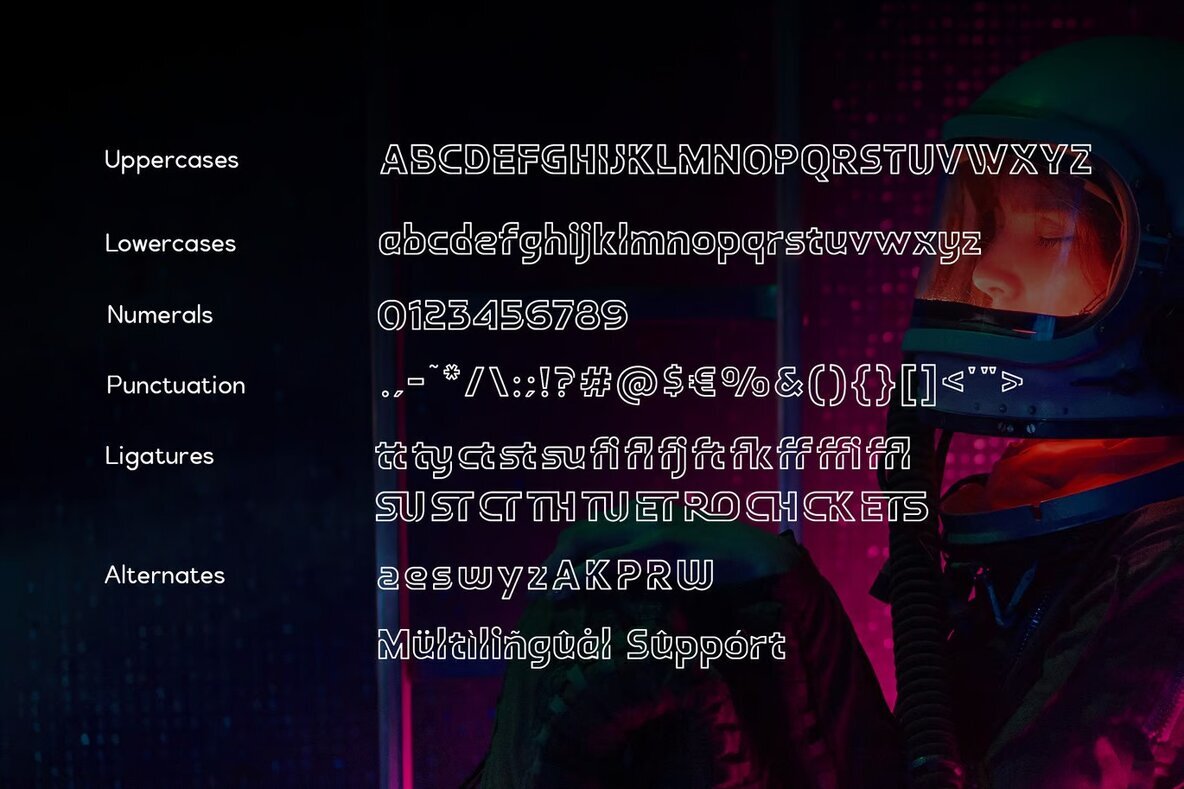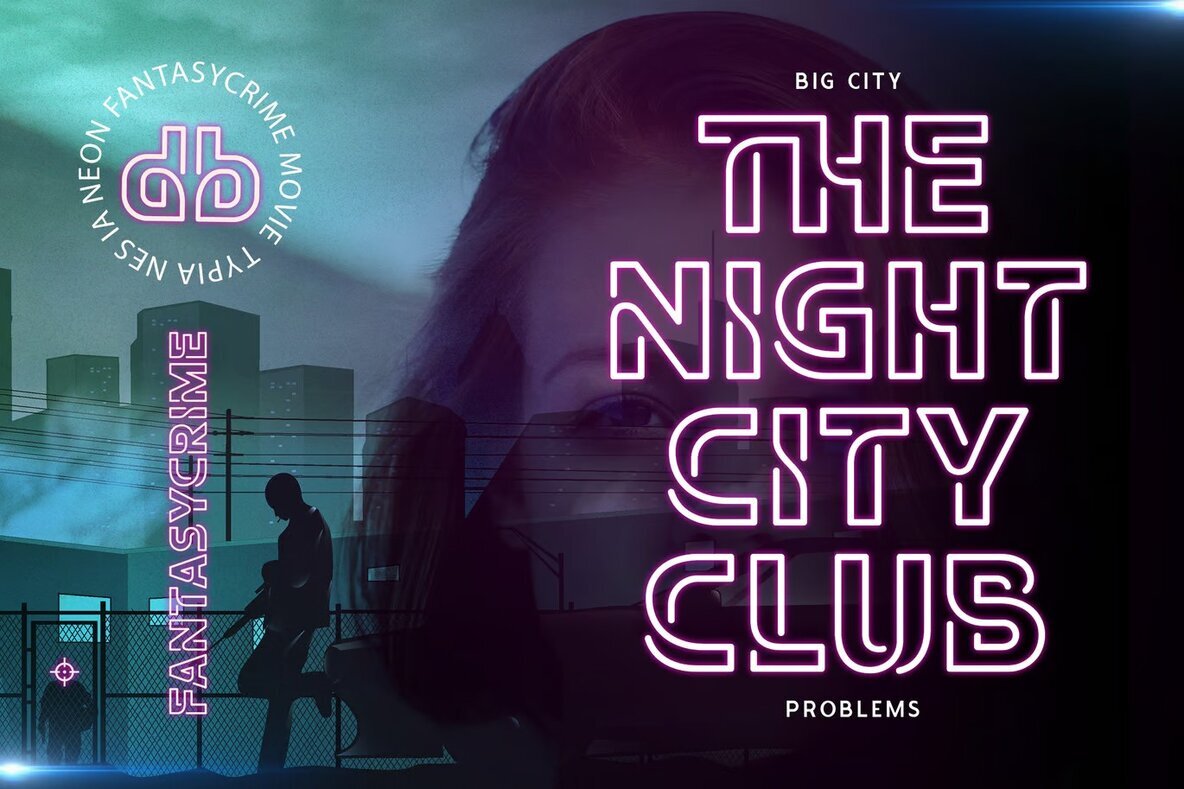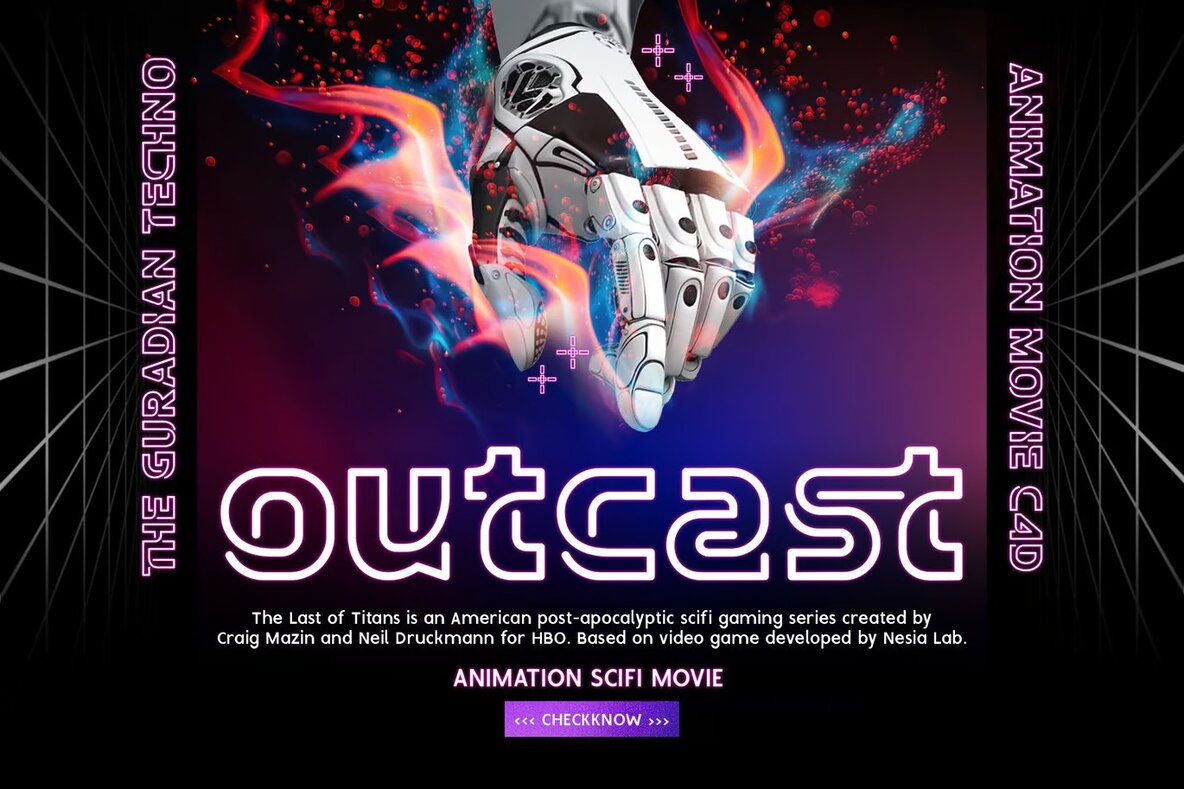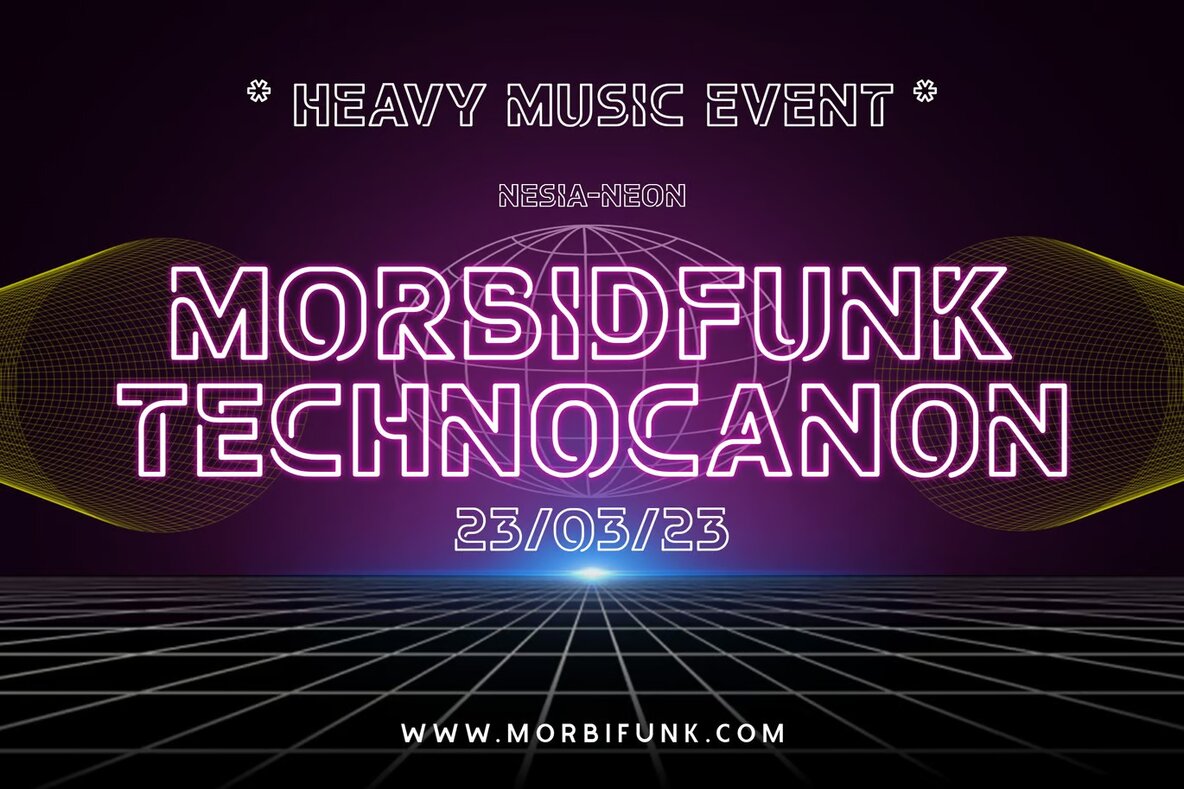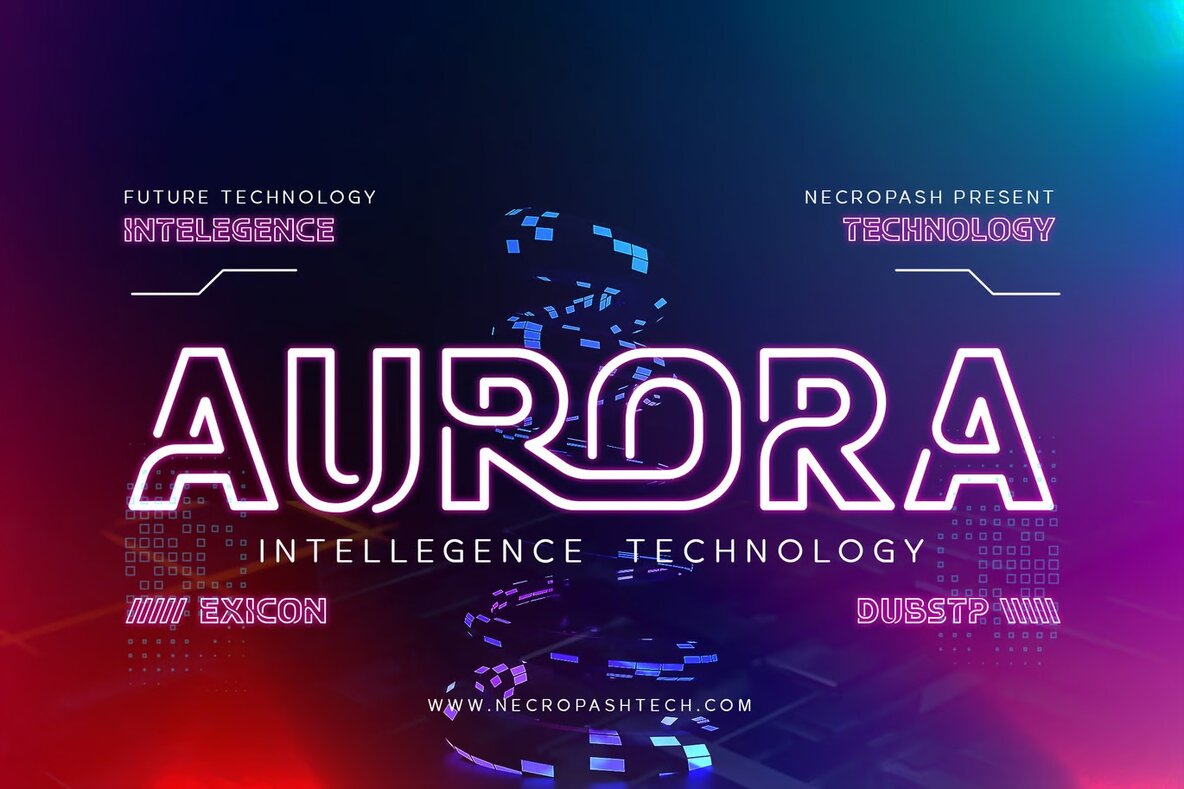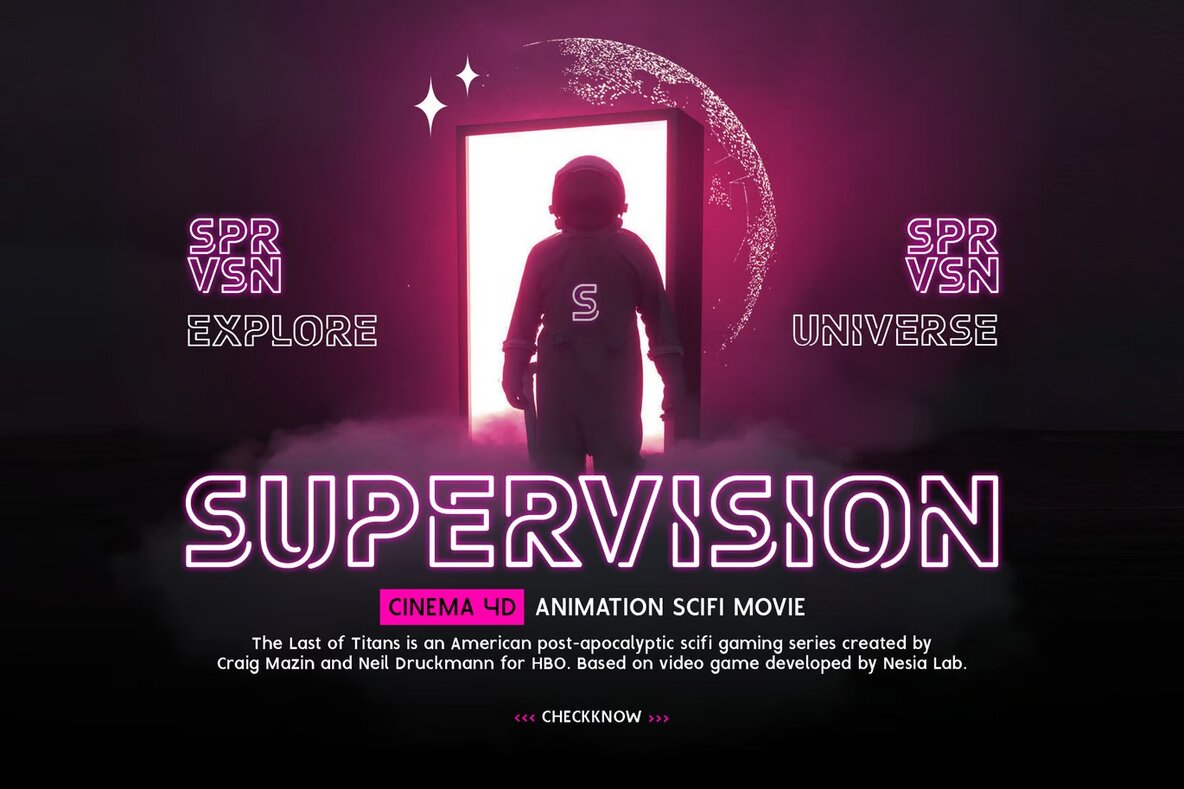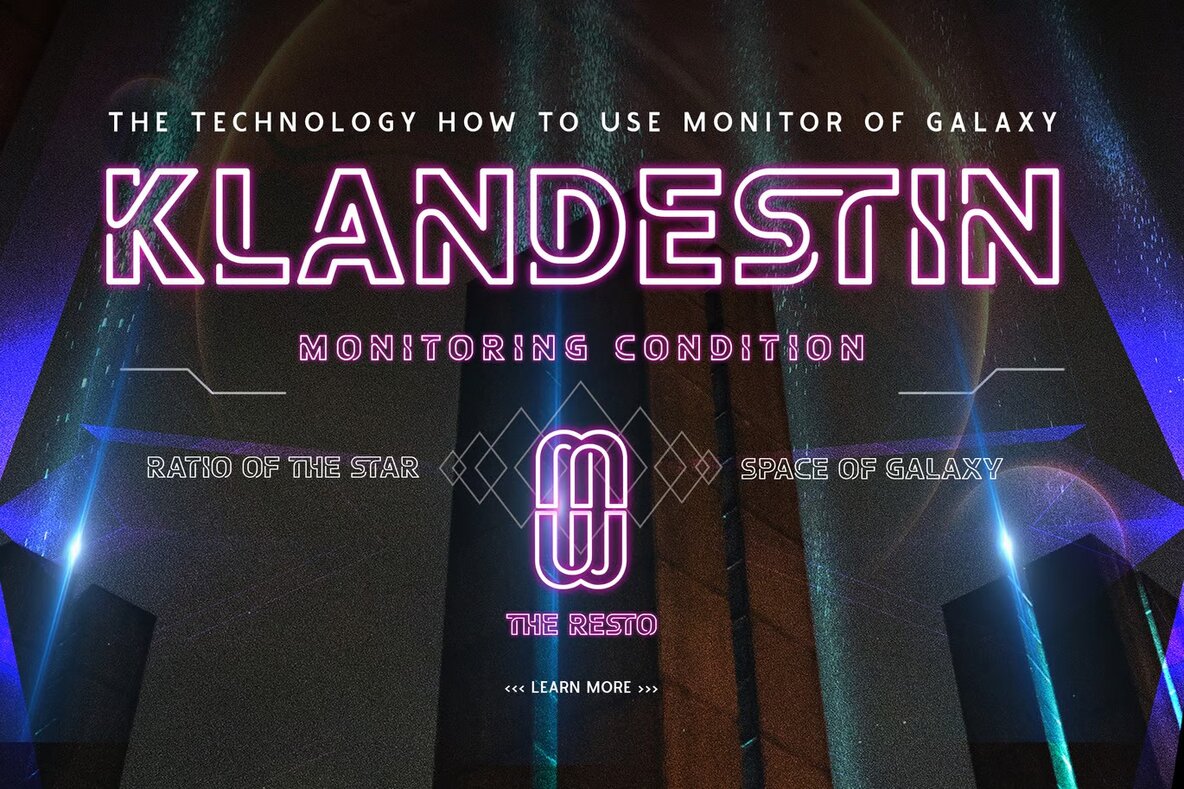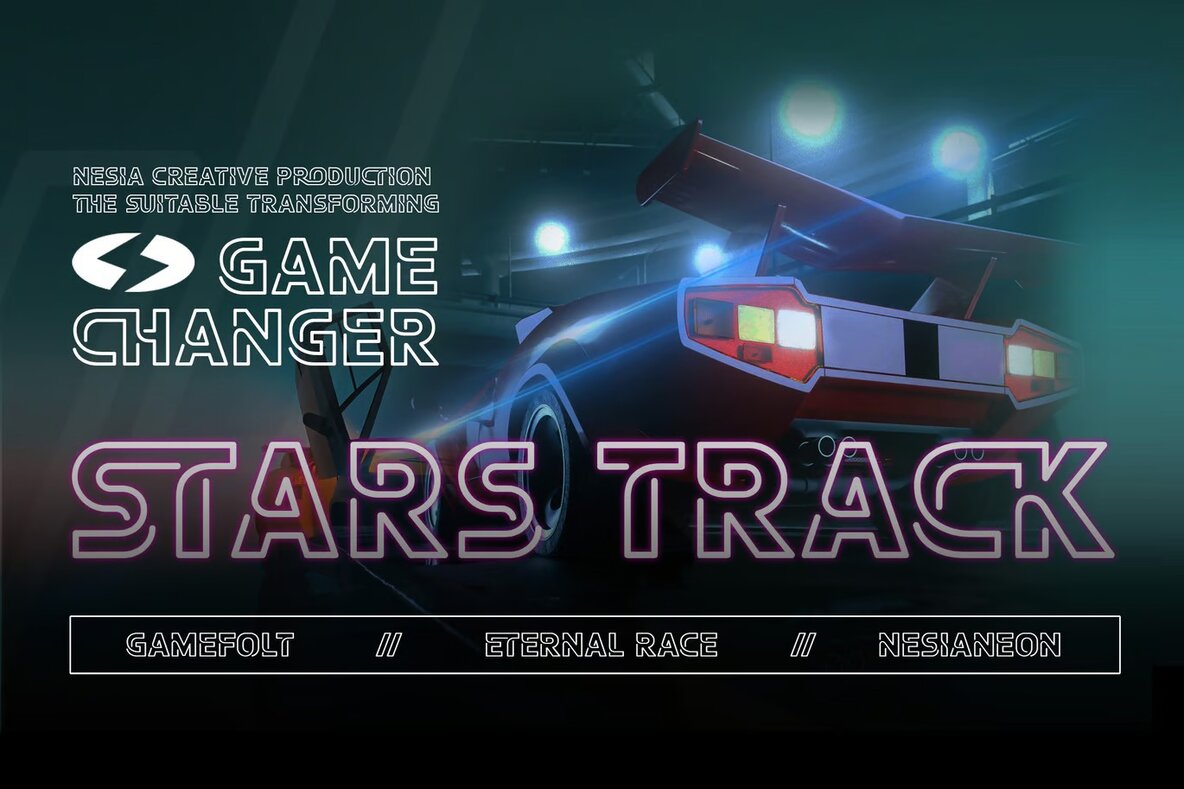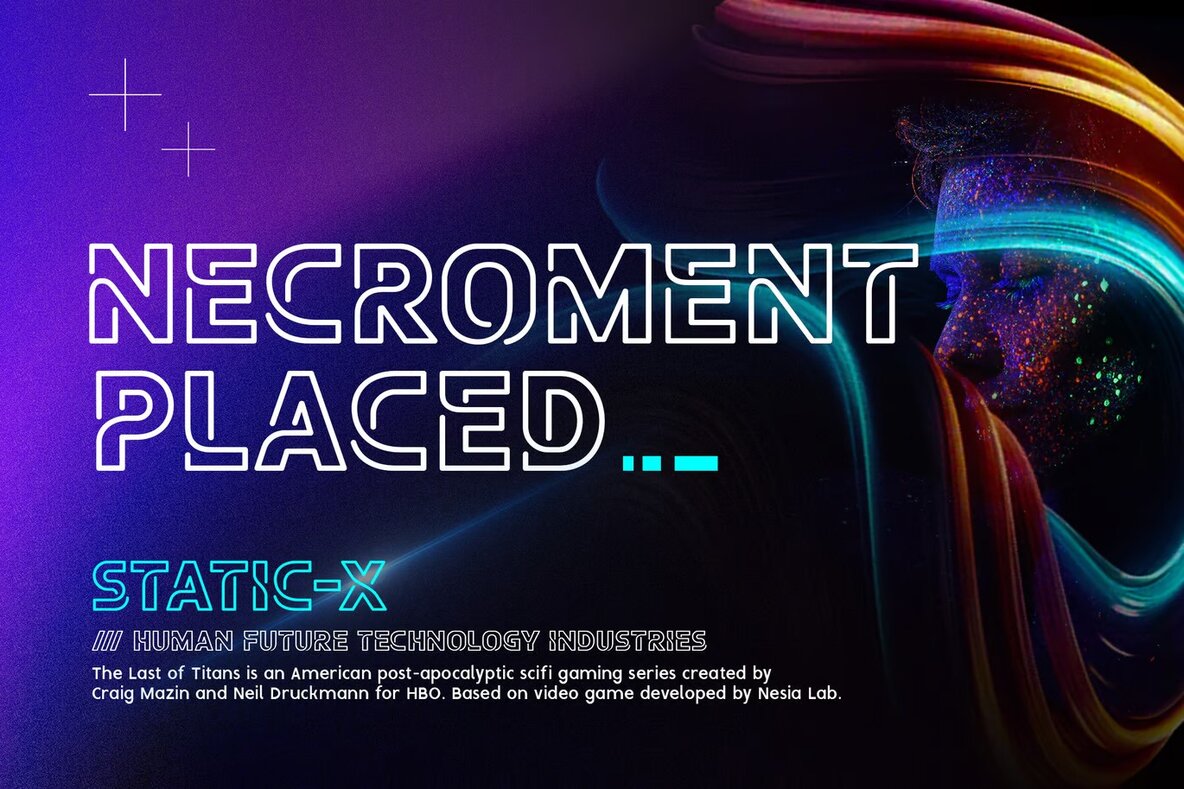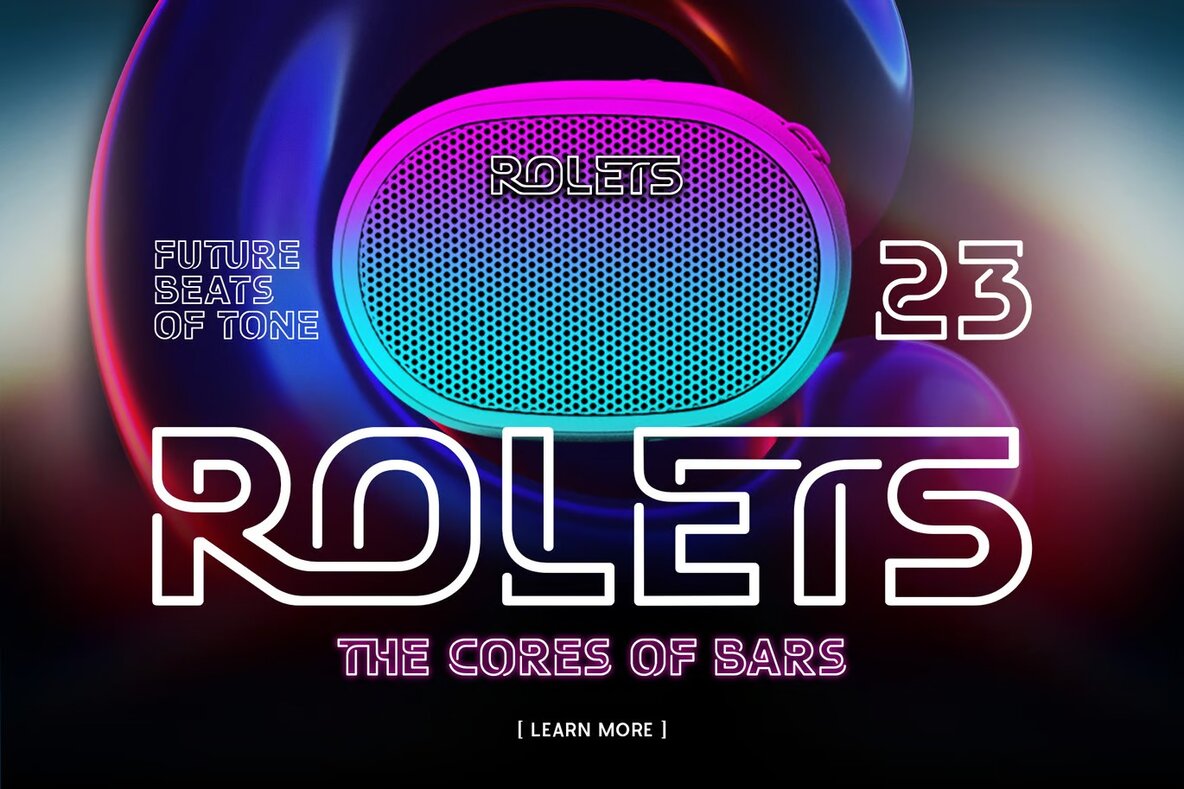
The Resto Font
The Resto Regular
Elevate your design game with "The Resto," a neon-themed, outline sans font that commands attention. Perfect for futuristic and techno-inspired projects, this bold typeface injects a sense of modernity and style. Ideal for logos, posters, and other visual materials, it features clean lines and sharp edges to ensure your message stands out vividly.
Ditch the mundane and embrace the electrifying appeal of "The Resto." This unique font guarantees your designs will attract attention and leave a lasting impression. Enhance your creative works with this standout font that combines clarity with an eye-catching neon glow, making it an excellent addition to any designer's toolkit.